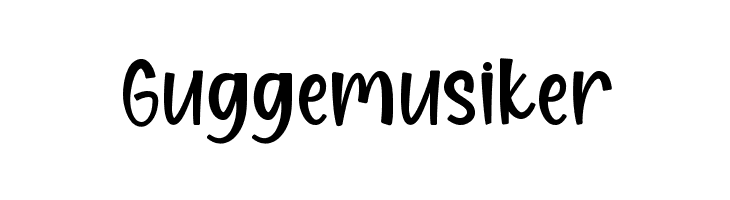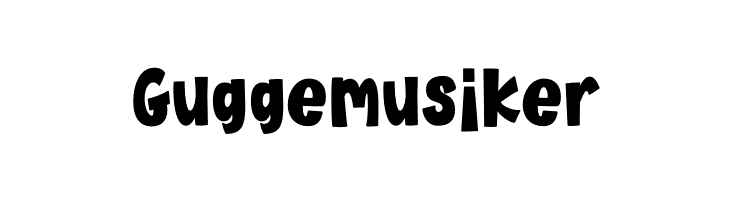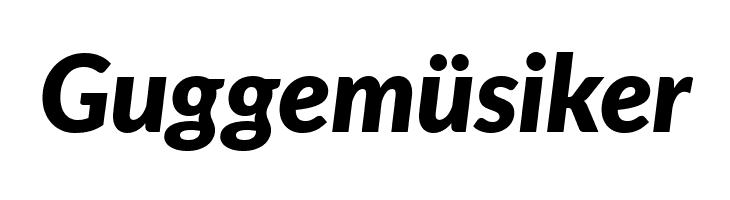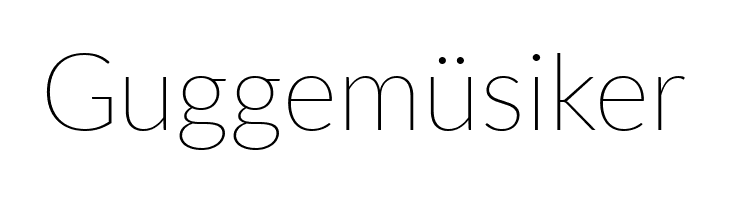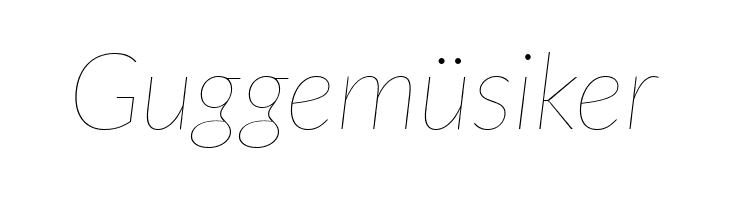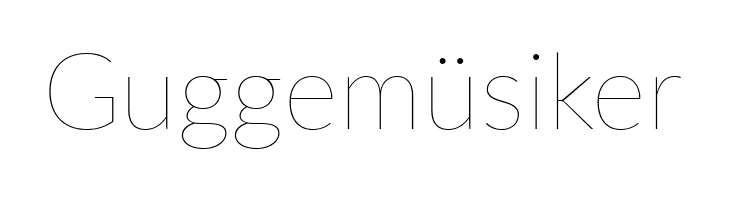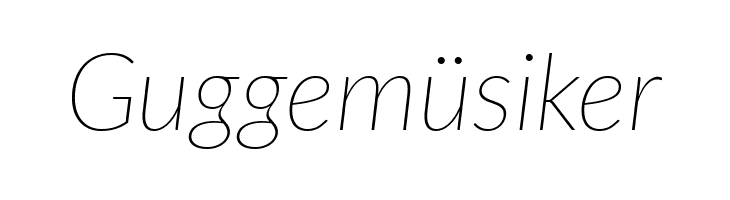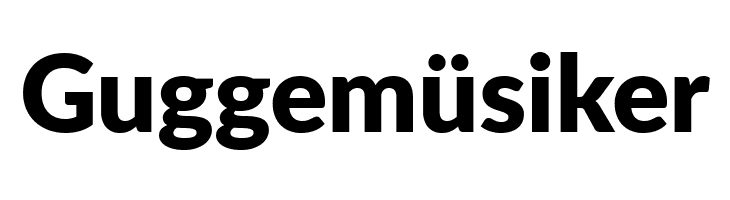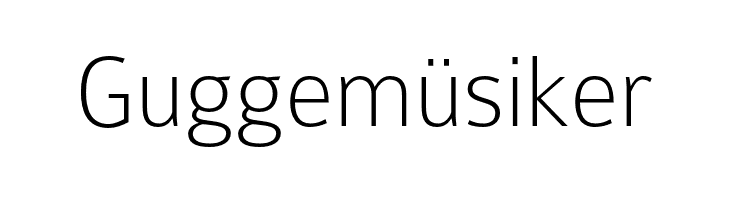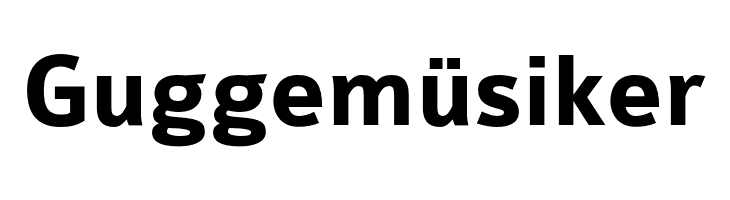
( Fonts by Nirmala Creative )
A playful, bold, and hand-drawn font with a childlike charm.
( Fonts by Carrois Type Design / Ralph du Carrois )
A modern, light sans-serif font with clean lines and balanced proportions.
( Fonts by Carrois Type Design / Ralph du Carrois )
A modern, thin sans-serif font with elegant strokes and balanced spacing.
( Fonts by Graphix Line Studio )
A playful and whimsical font with rounded, slightly irregular letterforms.
( Fonts by Gassstype )
A bold, vintage-style font with a playful and compact design.
( Fonts by tyPoland Lukasz Dziedzic )
A bold, modern sans-serif font with excellent readability and a professional appearance.
( Fonts by tyPoland Lukasz Dziedzic )
A sleek, minimalistic font with thin strokes and a modern, elegant appearance.
( Fonts by tyPoland Lukasz Dziedzic )
A sleek, hairline italic font with elegant and modern characteristics.
( Fonts by tyPoland Lukasz Dziedzic )
A modern, thin sans-serif font with a clean and minimalist design.
( Fonts by tyPoland Lukasz Dziedzic )
A sleek, thin italic font with a modern and elegant design.